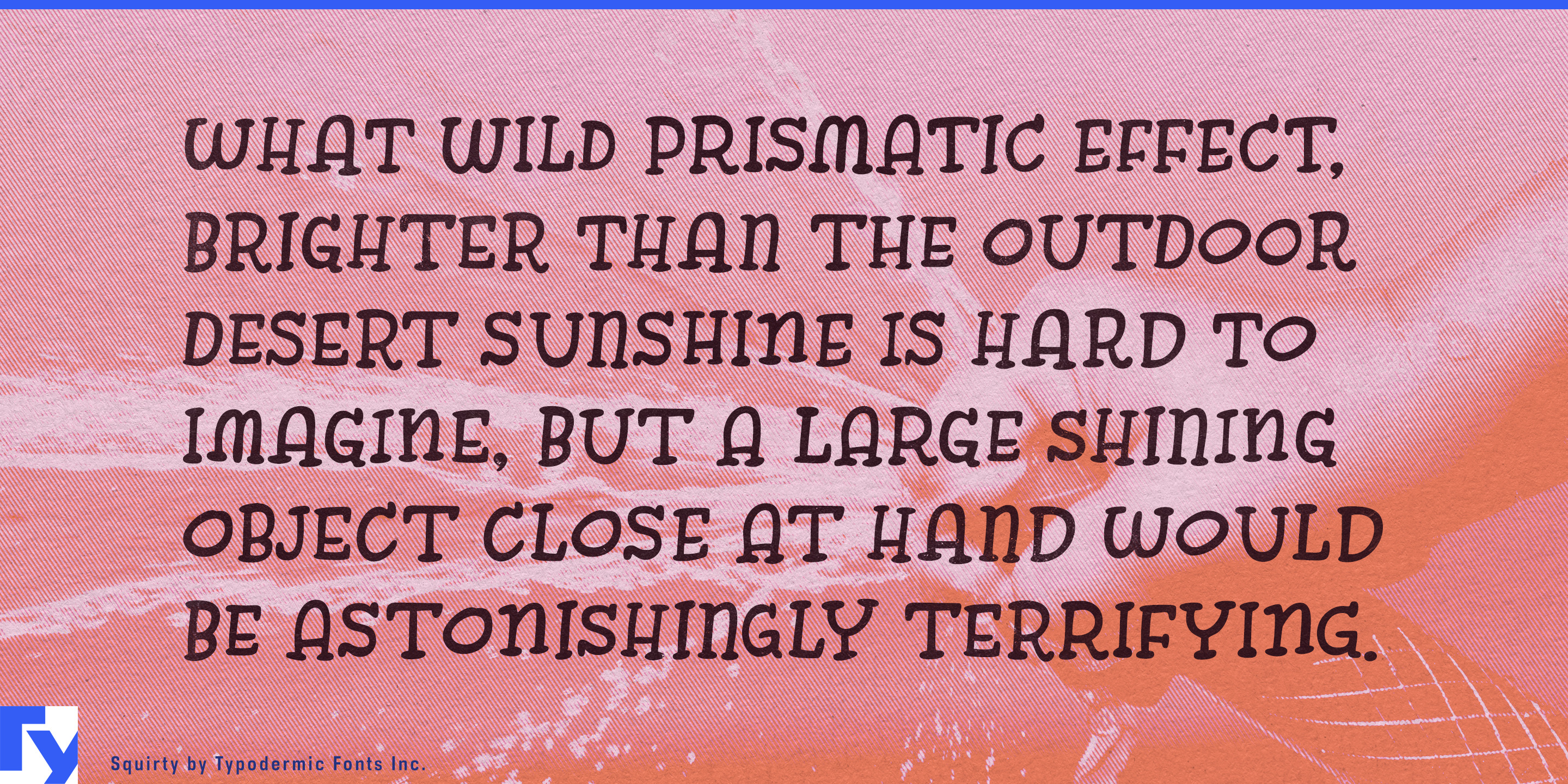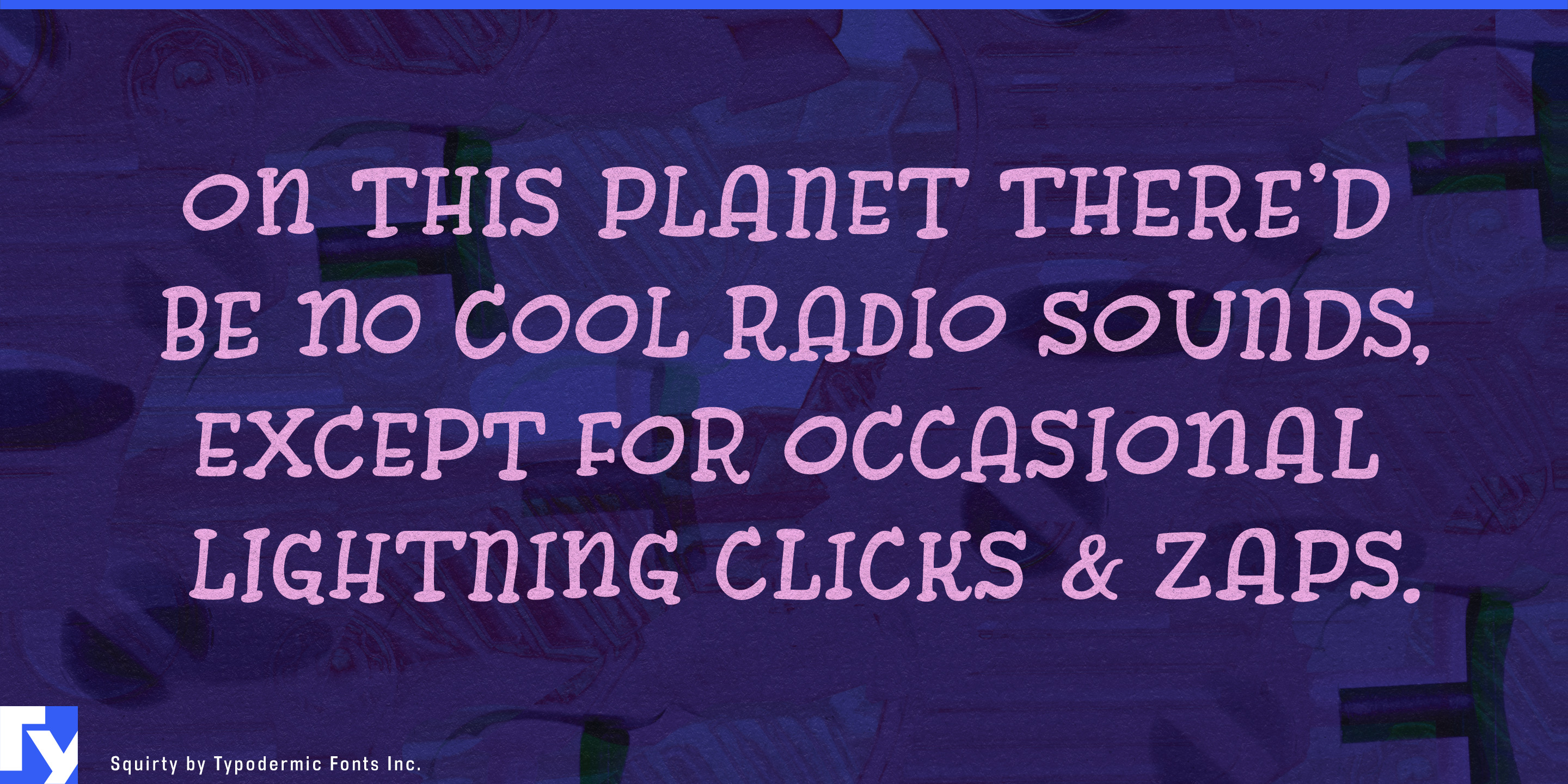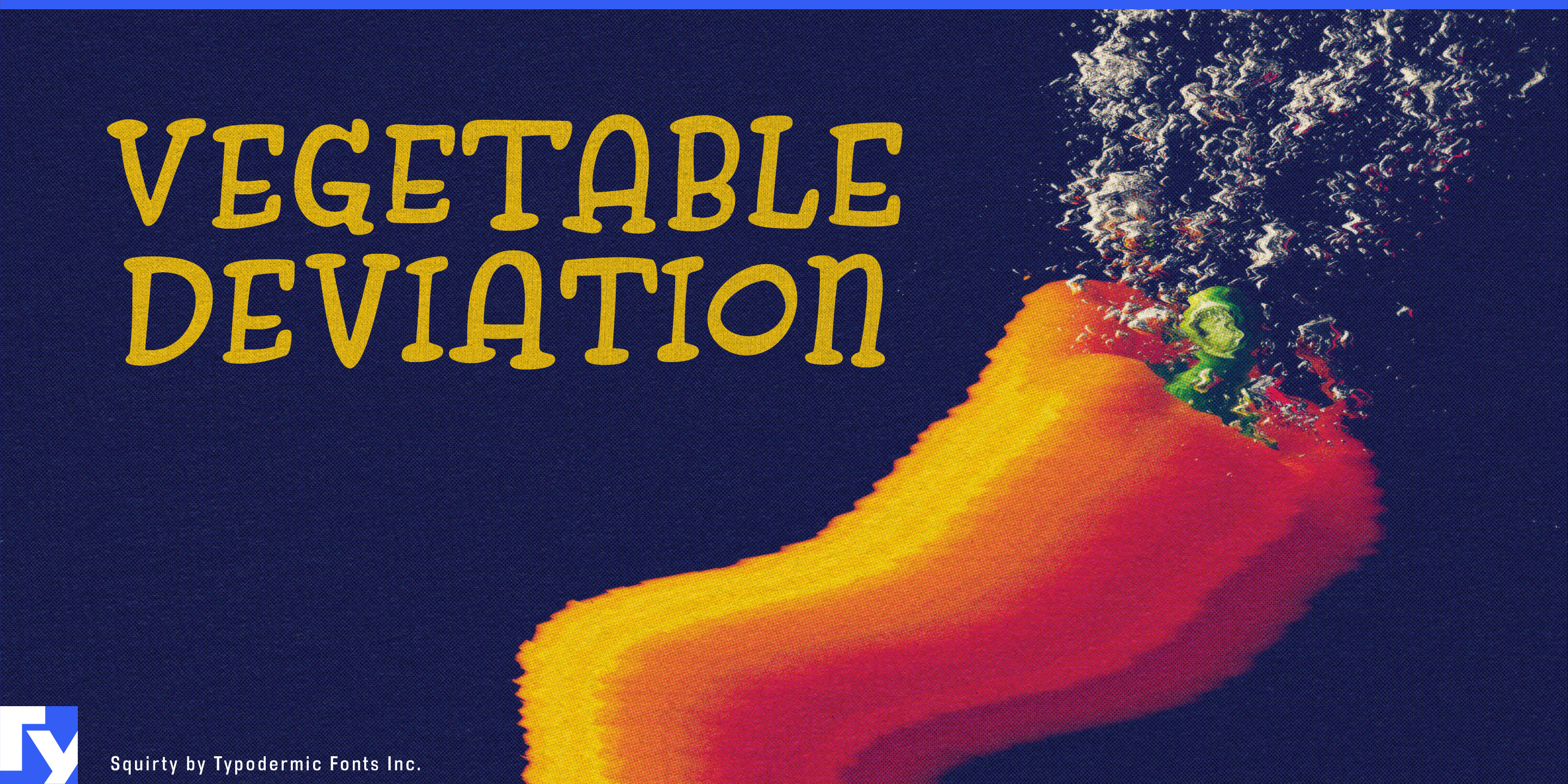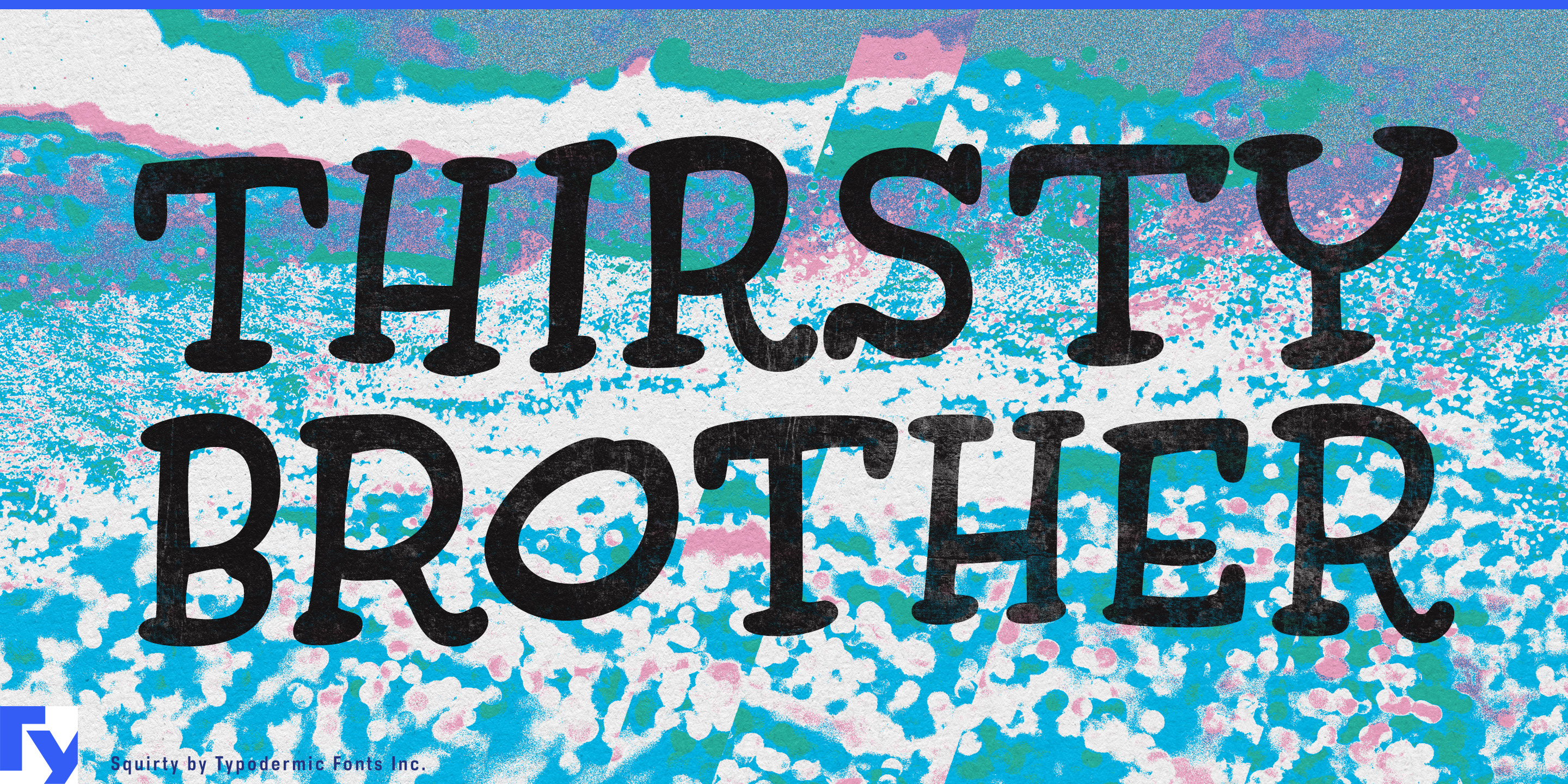
Squirty
Hand-drawn labels are appealing until you need fifty of them. Once jars, drawers, bottles, bins, or product variants form a system, the same irregular lettering that looked charming on one label can make the whole collection feel chaotic. Squirty keeps the hand-drawn variation while giving the line a surprisingly stable structure.
Its letters vary noticeably in size, but instead of bouncing along the baseline, they are organized around a shared vertical middle. Individual characters can be odd without making the word itself jump around. The result has some of the loose familiarity of newspaper-comic lettering, but it is calmer than the usual zany cartoon alphabet. Automatic shuffling changes common letter combinations as you type, helping repeated labels avoid the rubber-stamp effect that often gives away a handwriting font.
Spice and ingredient ranges are a particularly natural fit. Sumac, Fenugreek, Cumin, Za’atar, Smoked Paprika, and dozens of other jars need enough consistency to read as one product family without looking industrial. The same idea works for loose-leaf teas, seasoning blends, pantry containers, and refill systems, where standardized bottles and dispensers benefit from a more human layer of identification.
Workshops and creative spaces offer another useful setting. Craft-storage drawers, sewing cabinets, art-supply carts, maker labs, and ceramics studios may contain hundreds of compartments marked Brushes, Fasteners, Thread, Glazes, or Parts. Squirty makes those labels feel at home in a well-used workspace while its middle alignment keeps the overall system orderly.
The same principle can carry into garment information and circular-product labeling: repair tags, care-and-reuse cards, resale programs, material labels, and product-passport prompts can use Squirty for approachable headings while a neutral companion face handles the technical data. Interactive exhibits and game worlds can use it similarly for specimen drawers, discovery cabinets, crafting inventories, recipe collections, and other groups of individually named things.
Squirty is handwriting for organized collections; the letters are allowed to misbehave individually while the system around them stays under control.